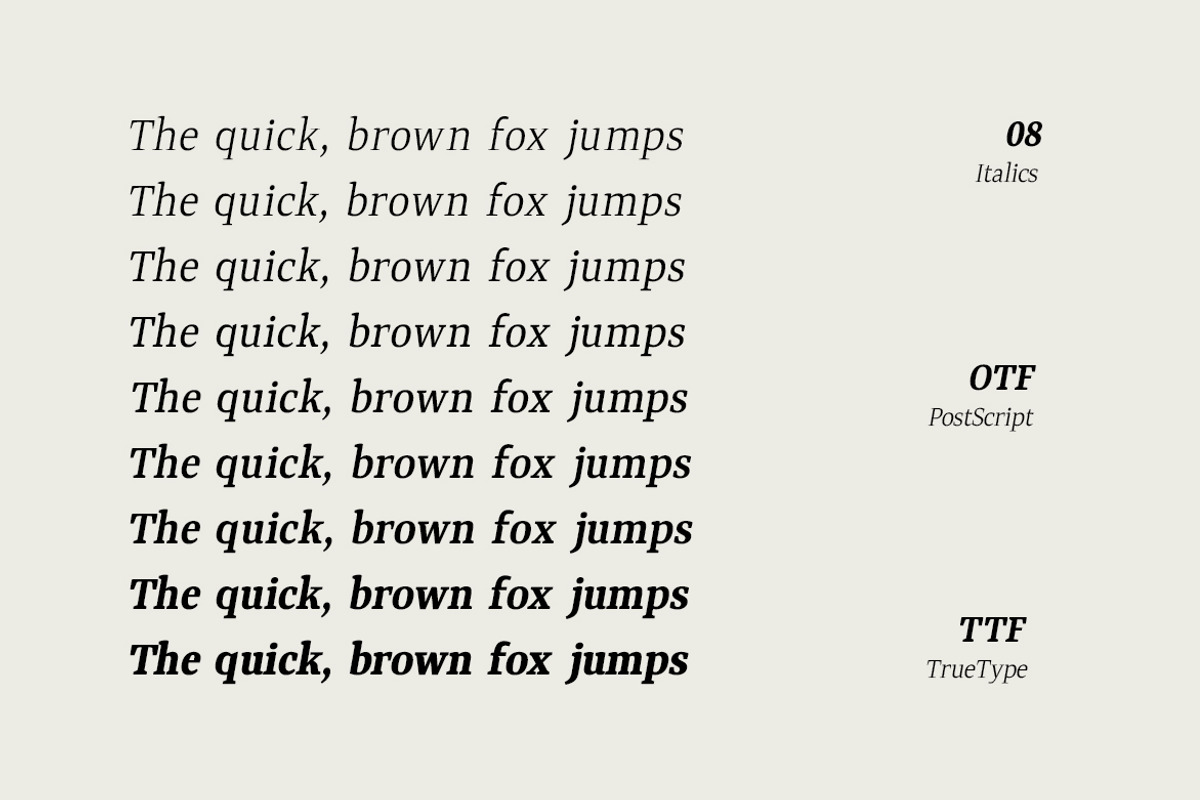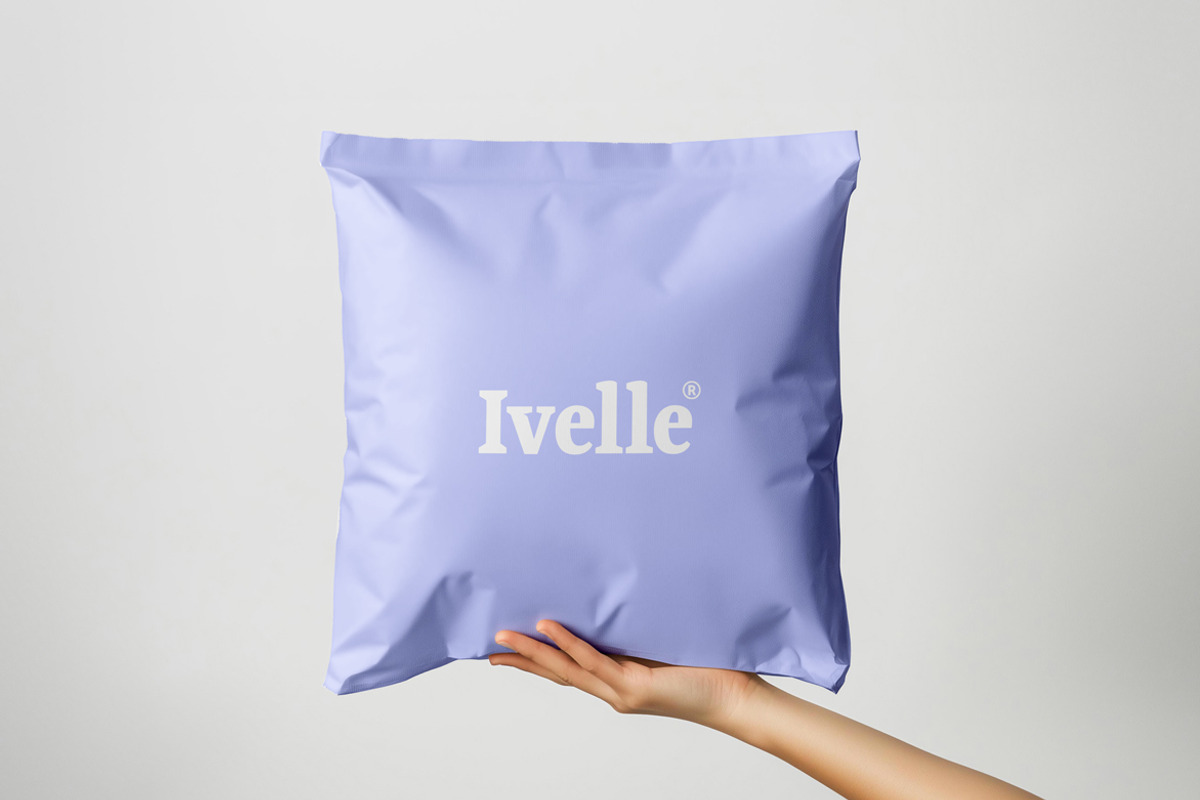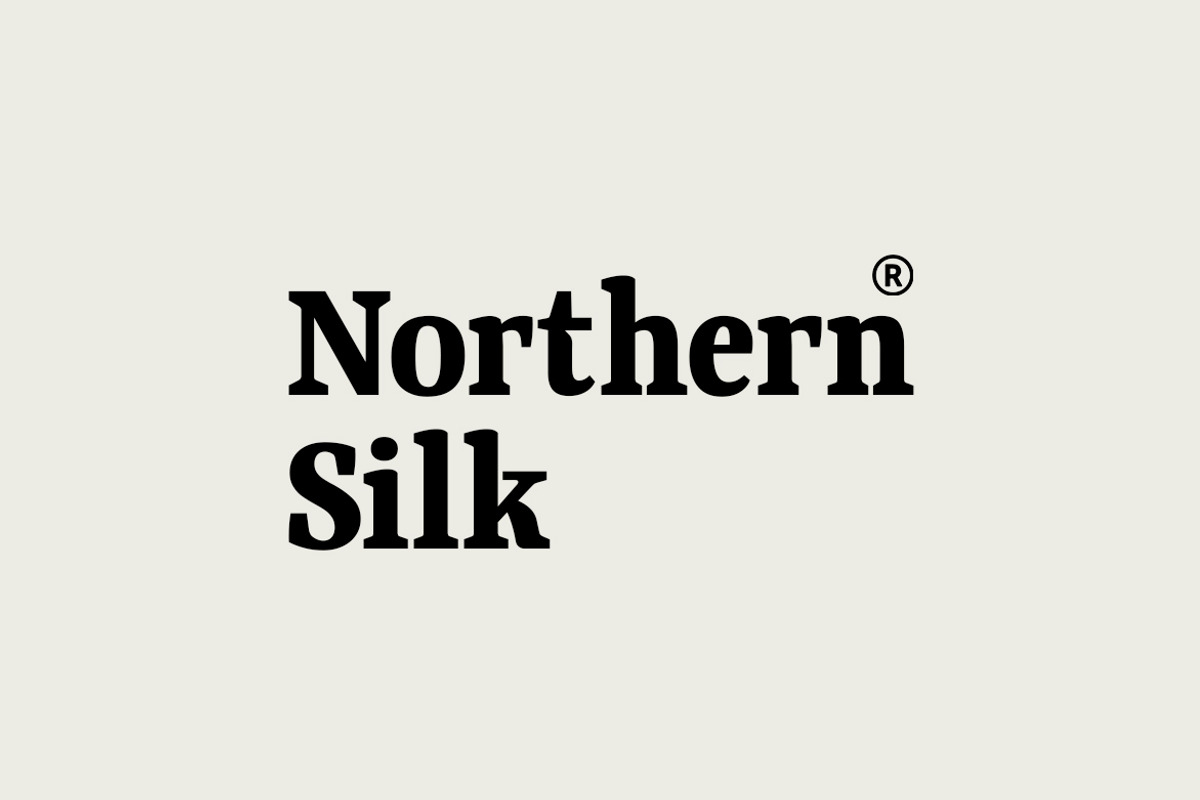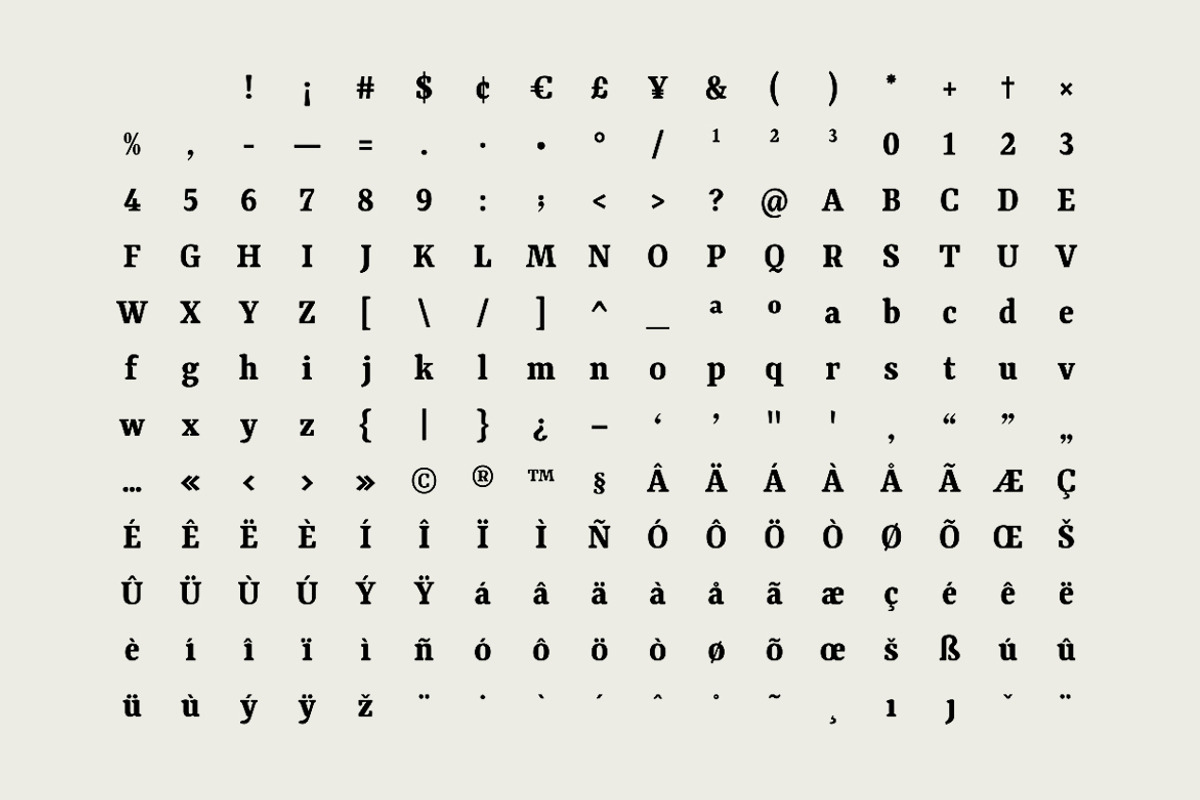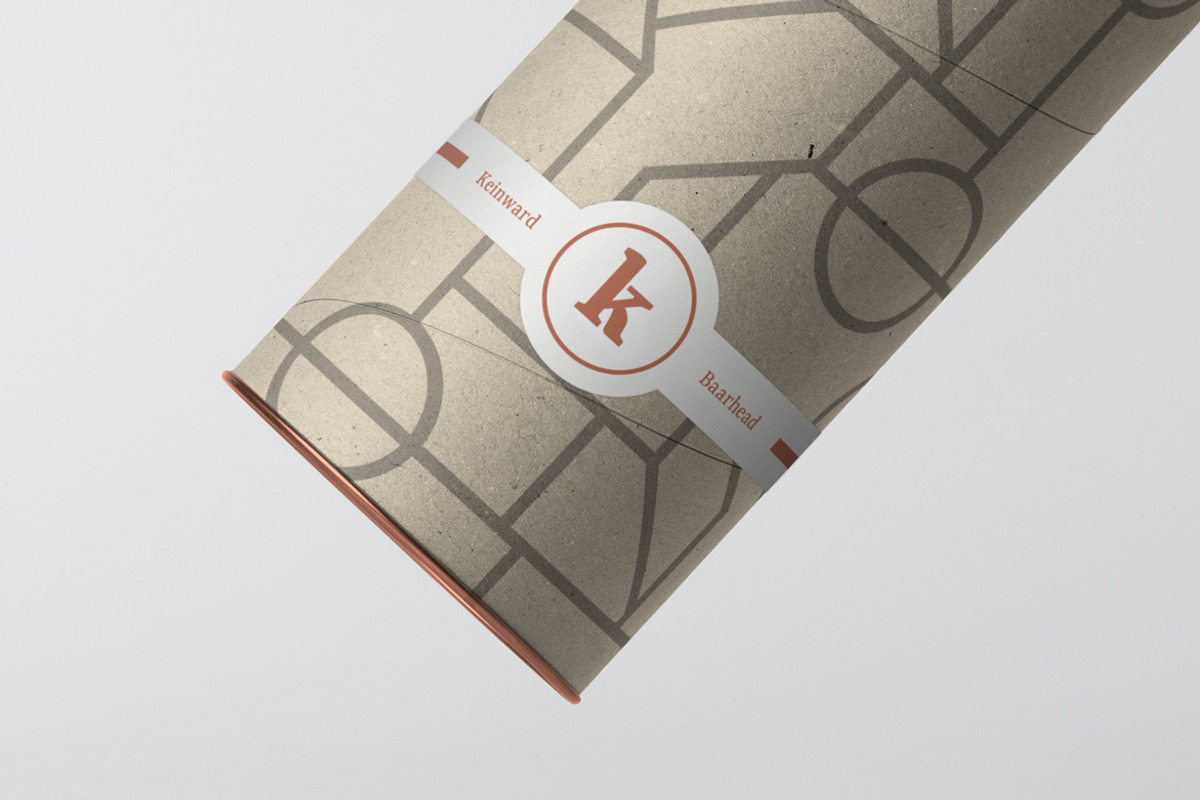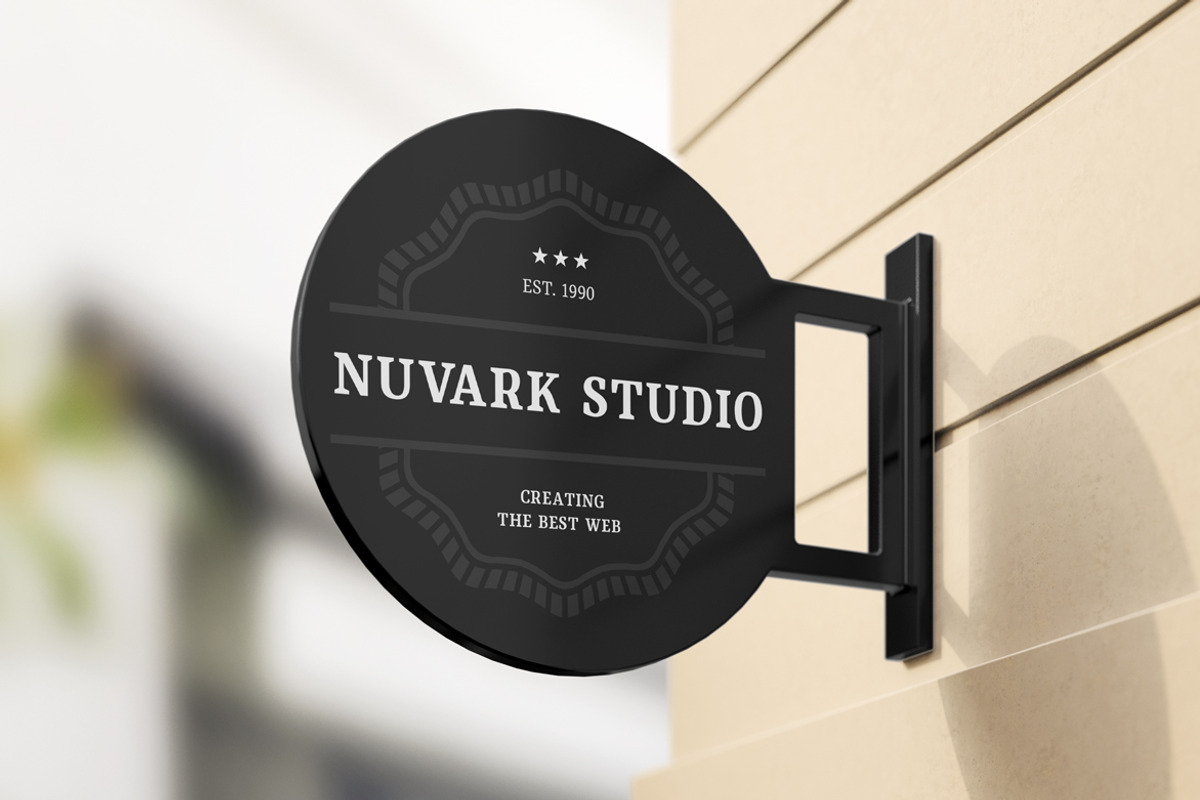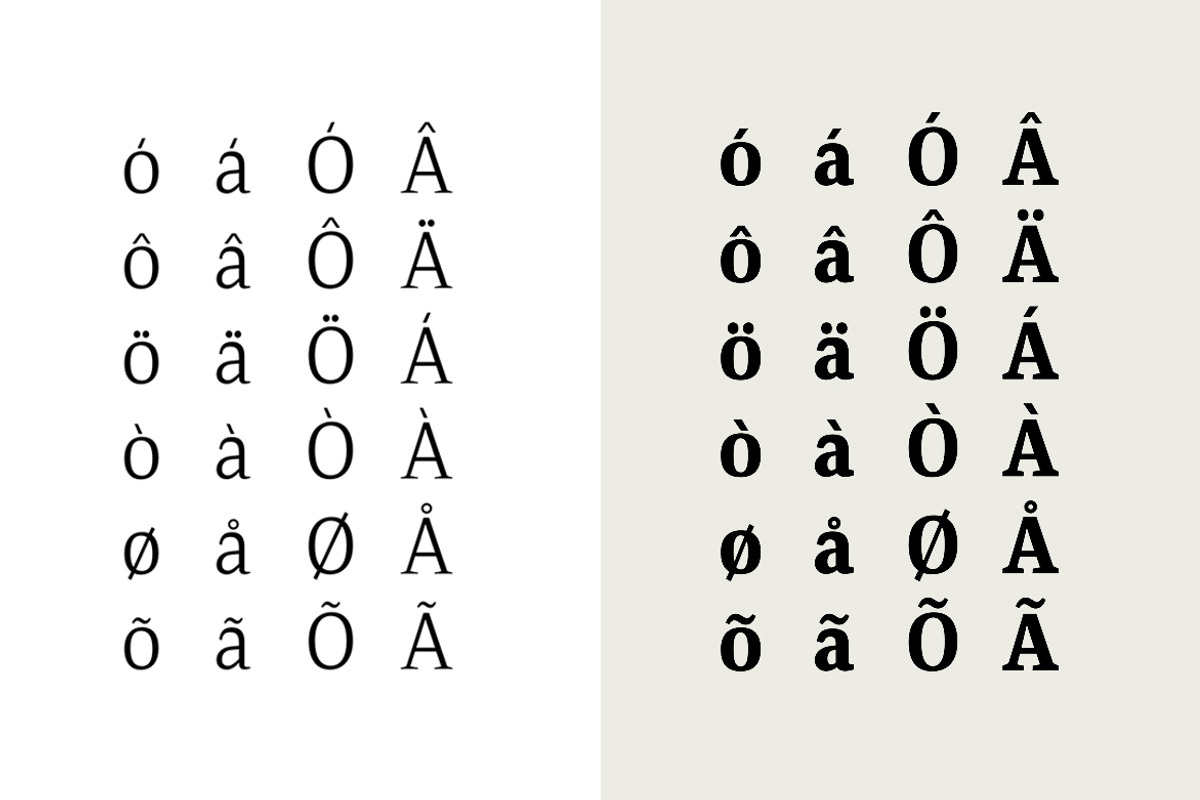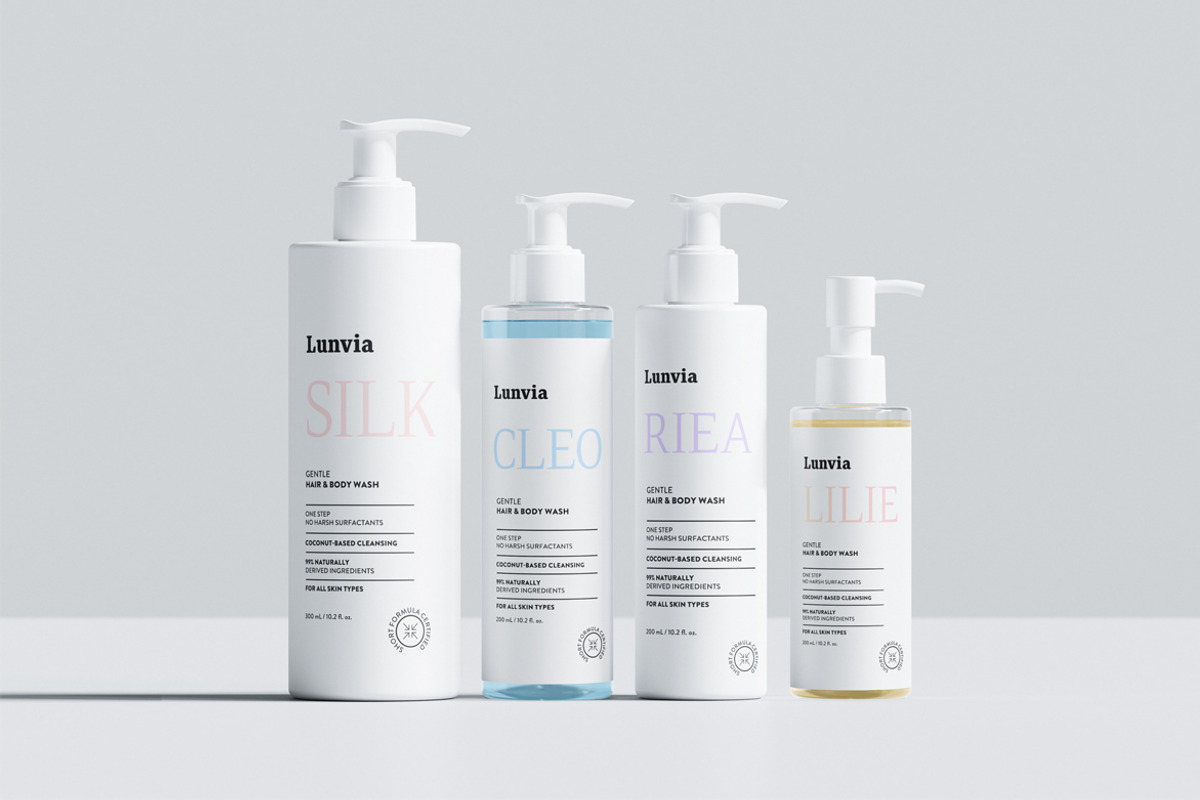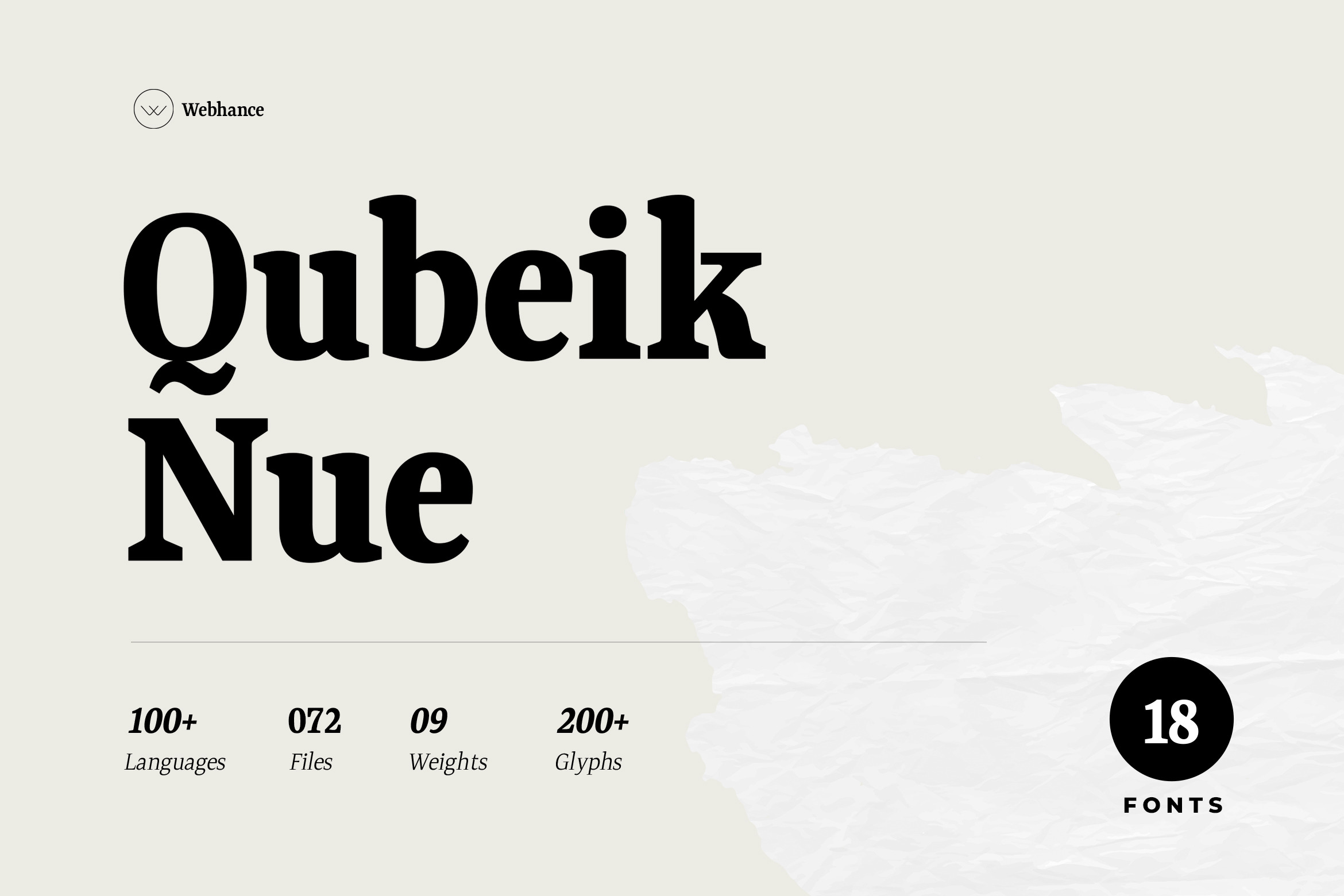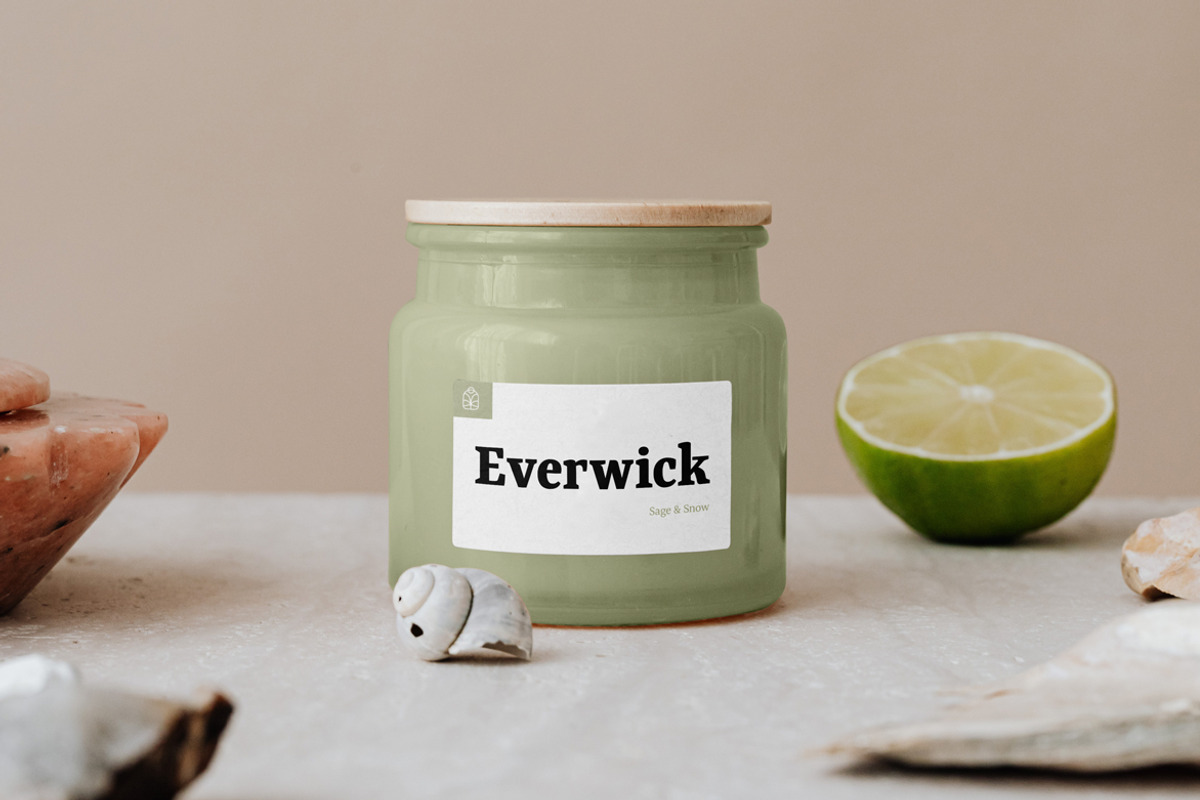
Qubeik Nue - A Premium Serif Font
Qubeik Nue is a modern serif typeface inspired by editorial elegance, typographic heritage, and digital clarity. Featuring 9 carefully crafted weights with italics variants, 18 fonts, and support for 100+ languages, Qubeik Nue balances sharp serifs with a contemporary rhythm — making it perfect for headlines, branding, packaging, websites, and sophisticated layout design.
Multilingual Font
Uppercase letters
Lowercase letters
09 Weights
09 Italics
18 Fonts Included
200+ Glyphs
Punctuations